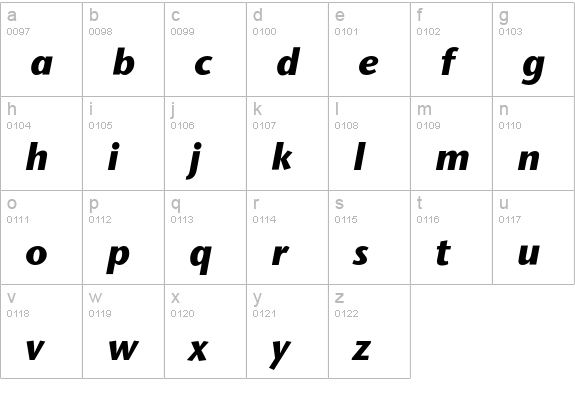
StoneSansEF-BoldItalic Font Details
StoneSansEF-BoldItalic is a versatile and modern typeface that exudes strength and sophistication. The bold italic style adds a touch of elegance to any design, making it perfect for headlines, logos, and branding materials. With its sharp angles and clean lines, this font commands attention and conveys a sense of confidence. Best of all, StoneSansEF-BoldItalic is available for free download at FontsMarket.com. Whether you're a designer looking to add a bold statement to your project or a business owner seeking a professional font for your branding, this typeface is the perfect choice. Download StoneSansEF-BoldItalic today and elevate your designs with its bold and dynamic presence.